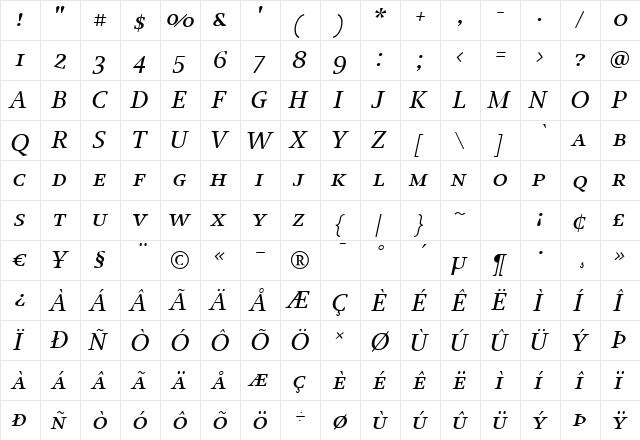
JudeMediumSmallCapsItalic Regular
Design Context for JudeMediumSmallCapsItalic Typeface
JudeMediumSmallCapsItalic is a composed and adaptable typeface that performs quietly and consistently across a wide range of design contexts. The slanted form adds forward momentum and visual energy.
Pro Tip: Use JudeMediumSmallCapsItalic for emphasis, pull quotes, and subheadings where its slanted energy can add rhythm to the layout.